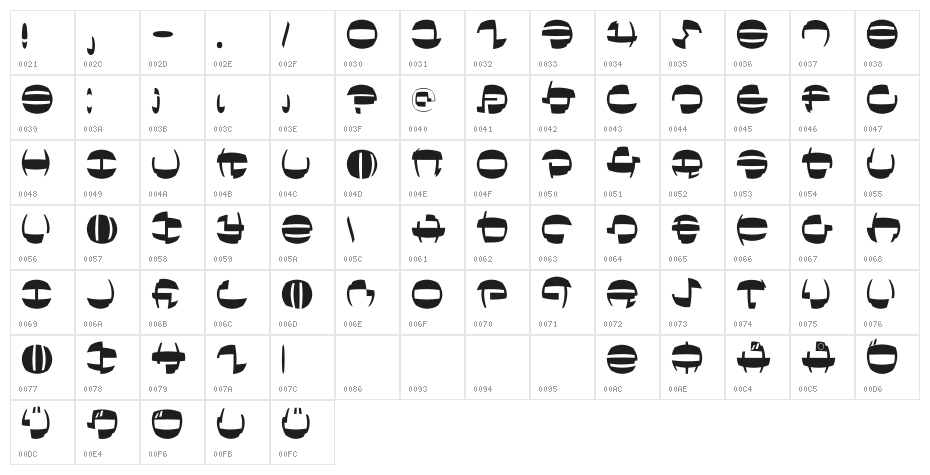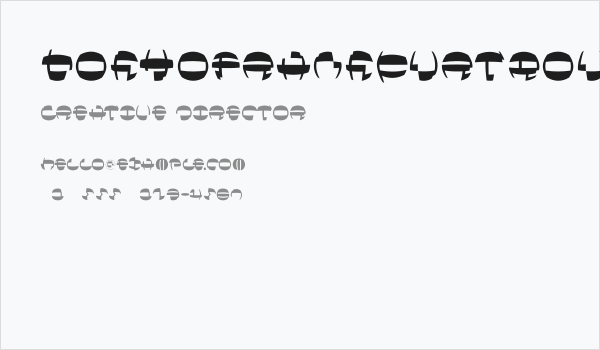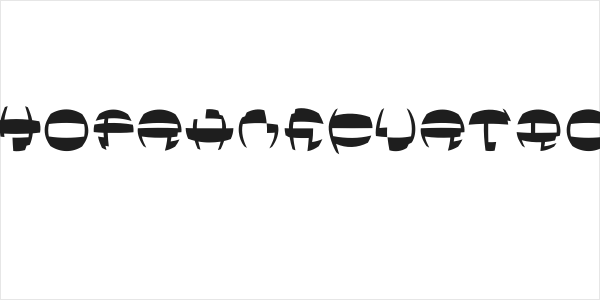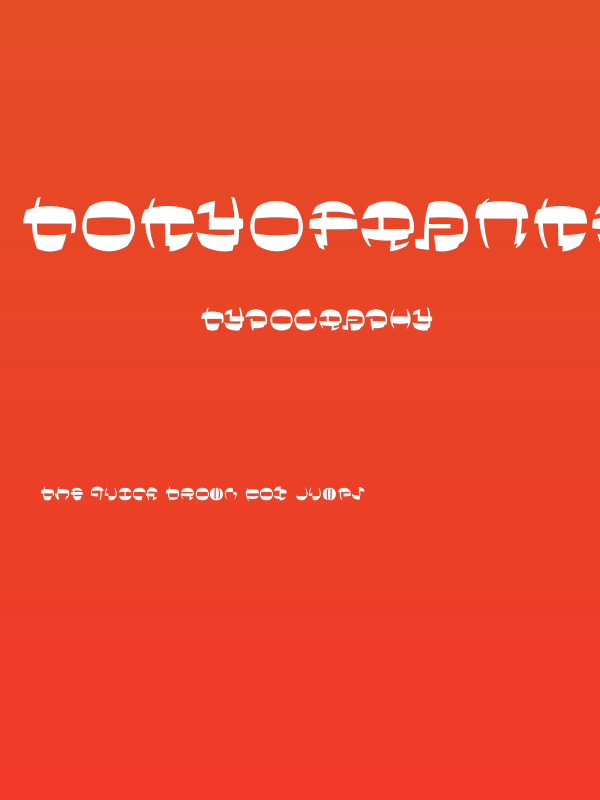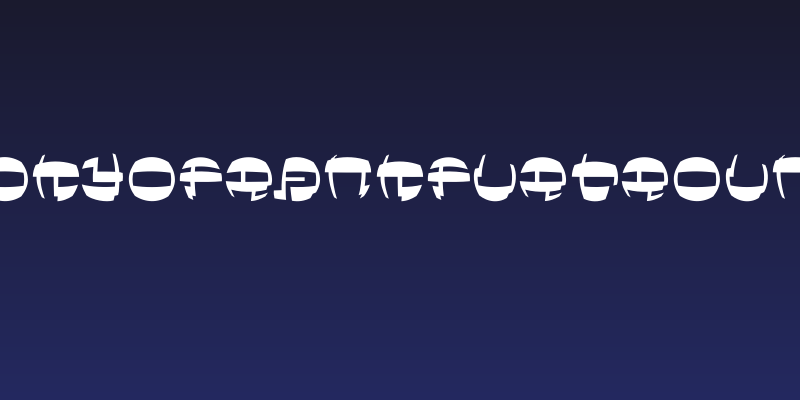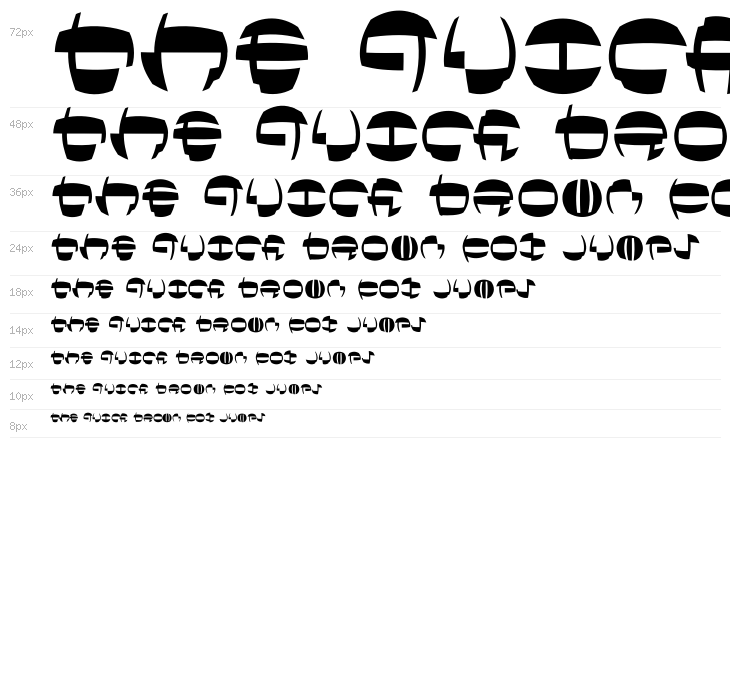
TokyoFrankfurtRound Font
TokyoFrankfurtRound Description
This font features a highly stylized and abstract design, characterized by its bold, rounded shapes and unique geometric forms. Each character is crafted with a combination of thick and thin strokes, creating a striking visual contrast. The letters are composed of disconnected segments that give an illusion of movement and fluidity, making it stand out as a modern and artistic typeface. The overall appearance is futuristic and experimental, suitable for projects that require a distinctive and avant-garde aesthetic.
| Use Case | Logos, Posters, Artistic projects |
| Proposed Projects | Ideal for modern art posters, futuristic branding, experimental design projects, and unique logo creation. |